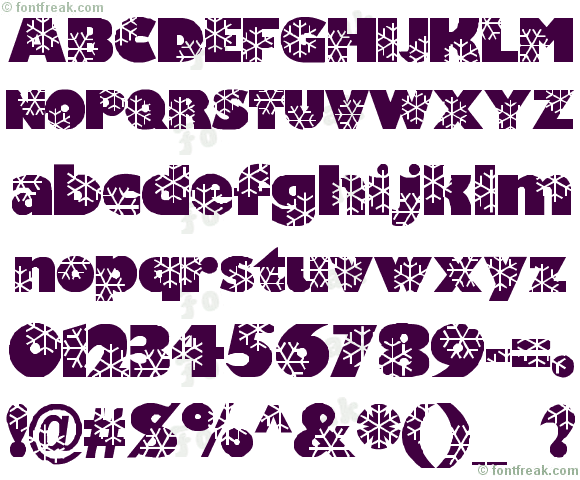
Krystal
About Krystal
The Krystal font by Anke Art is a striking display typeface that captures attention with its unique design. This decorative font features an intriguing combination of bold, geometric shapes intertwined with delicate snowflake motifs, creating a visually captivating effect. Its stroke weight is consistent, with a moderate contrast that enhances readability while still allowing for artistic flair. The spacing is well-balanced, ensuring that each letter stands out without overwhelming the overall composition.
Ideal for a variety of creative applications, the Krystal font shines in contexts such as winter-themed wedding invitations, holiday event flyers, and festive greeting cards. Its playful yet sophisticated aesthetic makes it suitable for children's book covers, fashion branding, or even restaurant menus that aim to evoke a sense of warmth and charm. Graphic designers, small business owners, and content creators will find this font particularly appealing, as it offers versatility and a contemporary edge that can elevate any project.
What sets the Krystal font apart is its ability to blend whimsy with elegance, making it both memorable and functional. Whether you’re designing a seasonal marketing campaign or crafting a personal project, the Krystal font free download opens up a world of creative possibilities. Its unique character not only enhances visual storytelling but also resonates with audiences, making it a standout choice for those looking to add a distinctive touch to their designs. By integrating playful elements with a clean structure, the Krystal font by Anke Art stands out as a perfect choice for anyone seeking to make a bold statement in their typography.